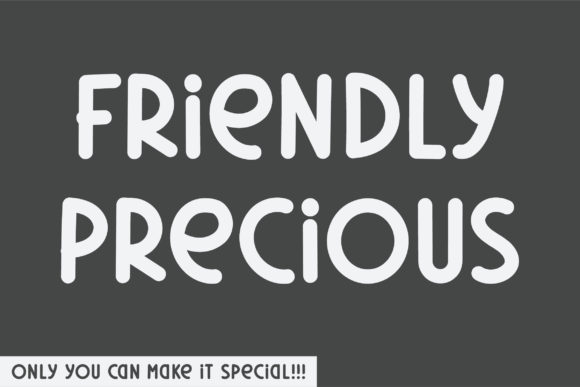
Embark on an artistic odyssey with Friendly Precious Font - a breathtaking sans serif masterpiece crafted by the visionary Hanna Bie. Prepare to be captivated by its elegant curves, bold strokes, and innate versatility that will transform your creative endeavors into captivating works of art.
Immerse yourself in the world of Friendly Precious, where your imagination reigns supreme. Let your words dance with grace and elegance as you create wedding invitations that exude timeless sophistication. This font's inherent charm will lend an air of romance and exclusivity to your special day, leaving a lasting impression on your guests.
Explore the endless possibilities of Friendly Precious in the realm of stationary art. Its bold presence will command attention, while its delicate details will evoke an emotional resonance that will leave your audience spellbound. Let your creativity soar as you craft beautiful posters, flyers, and business cards that will stand out from the crowd.
Unleash the power of Friendly Precious in the dynamic world of social media. Its eye-catching design will captivate your audience, drawing them into your captivating posts and leaving them eager for more. Elevate your brand's online presence with stunning visuals that will resonate with your followers and leave a lasting impression.
Embark on a creative journey with Friendly Precious Font - your gateway to a world of elegance, versatility, and boundless creative possibilities. Its stunning design will transform your words into visual masterpieces, leaving a lasting impression on all who encounter them. Embrace the beauty of Friendly Precious and unlock the true potential of your artistic expression.